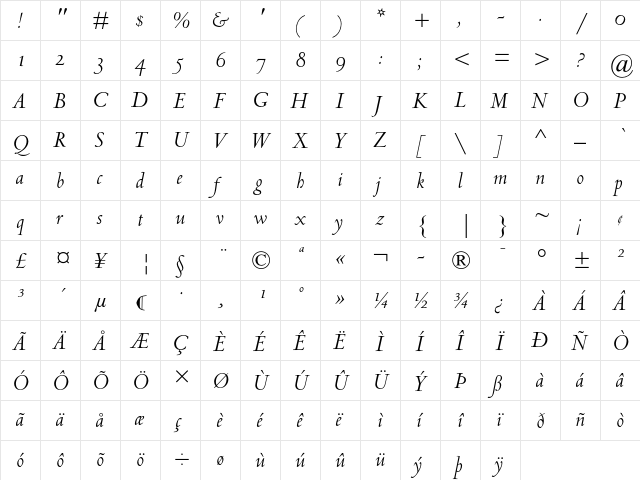
Centaur MT Italic OsF Font Preview
Centaur MT Italic OsF
Design Context for Centaur MT Typeface
Centaur MT takes a measured approach to typography — its balanced proportions and neutral character make it a reliable workhorse for both digital and print work. The dynamic lean of this cut emphasises speed and emphasis in any layout.
Pro Tip: Use Centaur MT for emphasis, pull quotes, and subheadings where its slanted energy can add rhythm to the layout.